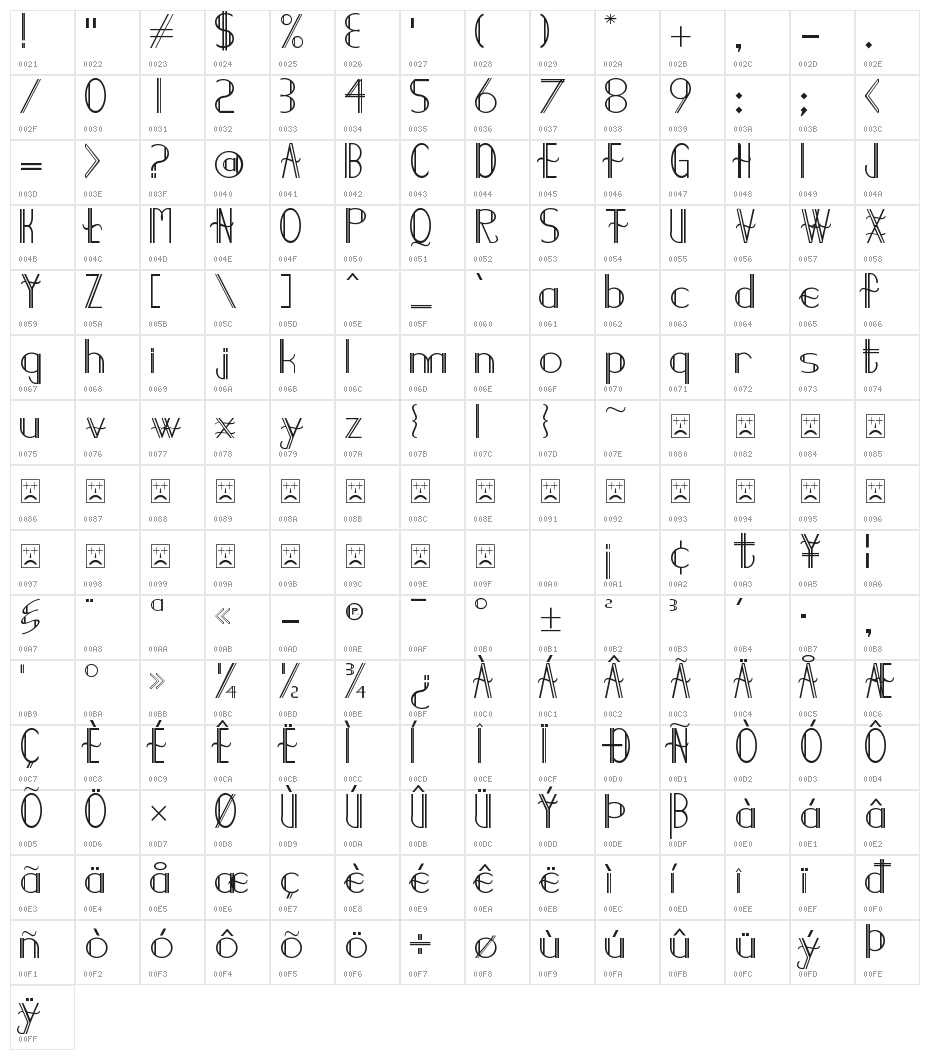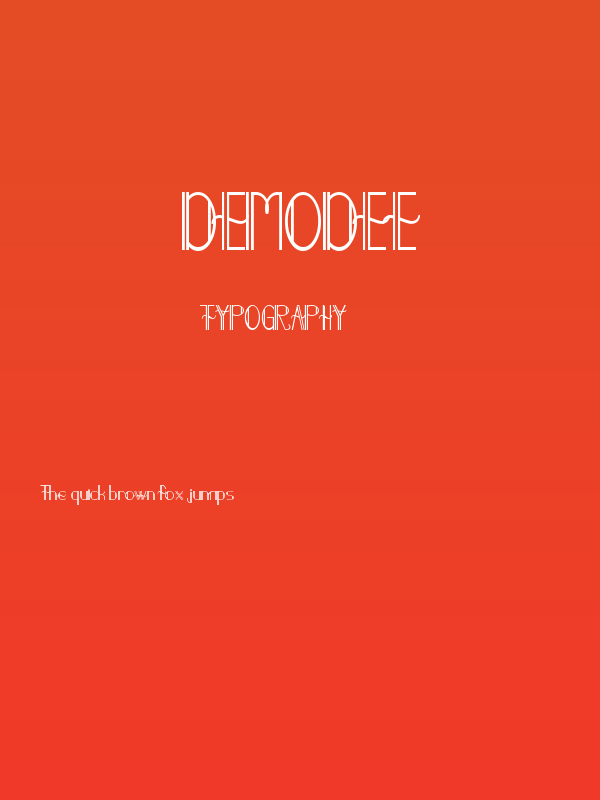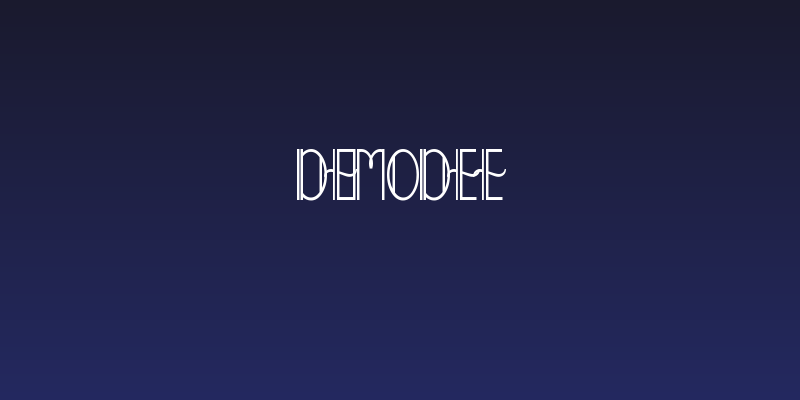
Demodee Font
Demodee Description
This font features a unique and modern design with elongated and narrow letterforms. The characters are composed of thin, parallel lines that create a sense of elegance and sophistication. The uppercase letters have a distinct geometric style, while the lowercase letters maintain a consistent flow with subtle curves. The numerals are equally stylish, complementing the overall aesthetic. Special characters are designed with the same attention to detail, making this font versatile for various applications.
| Overall Style | Modern, Elegant |
| Proposed Projects | Ideal for fashion magazines, luxury branding, modern art posters, and high-end product packaging. |